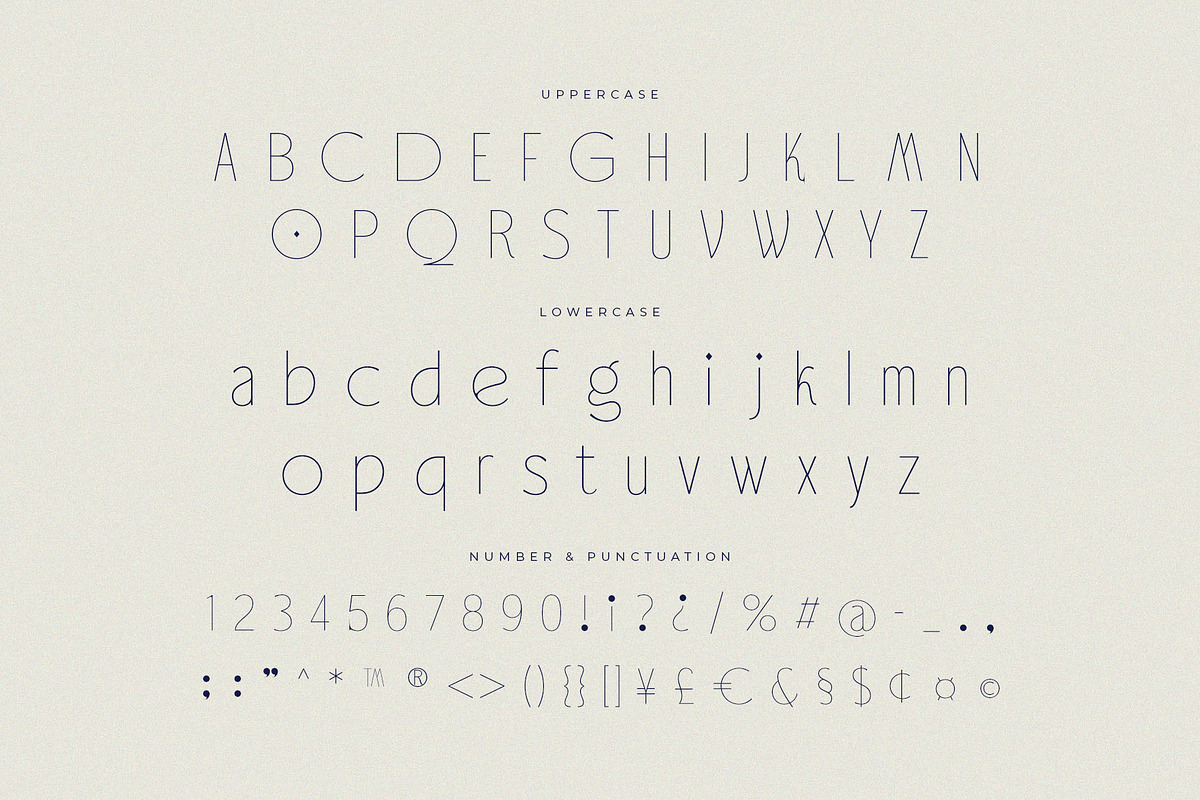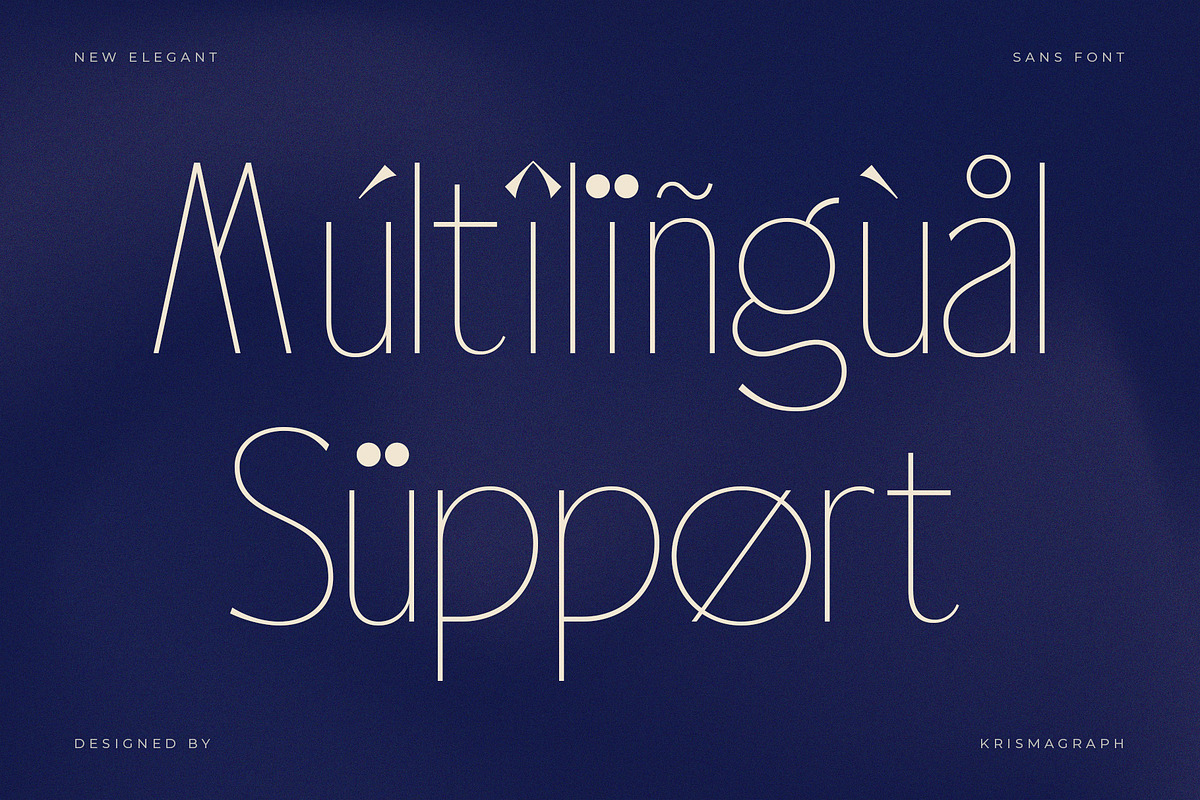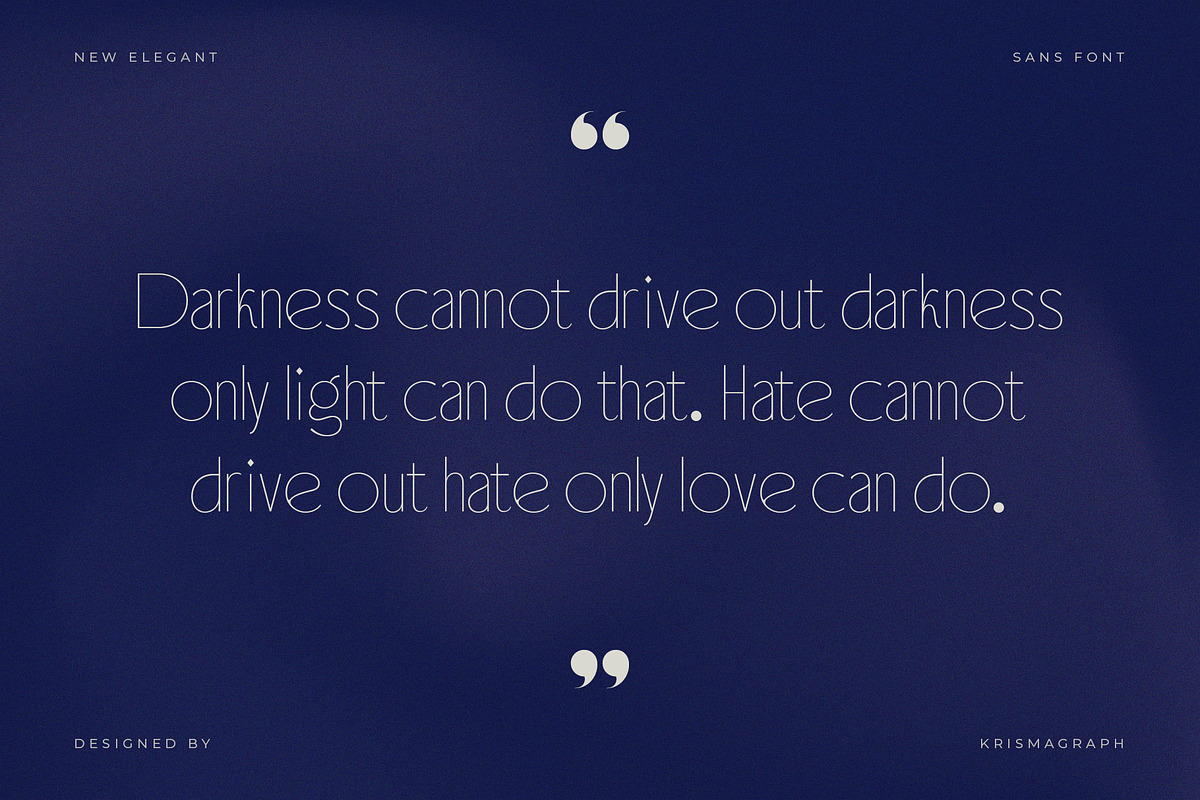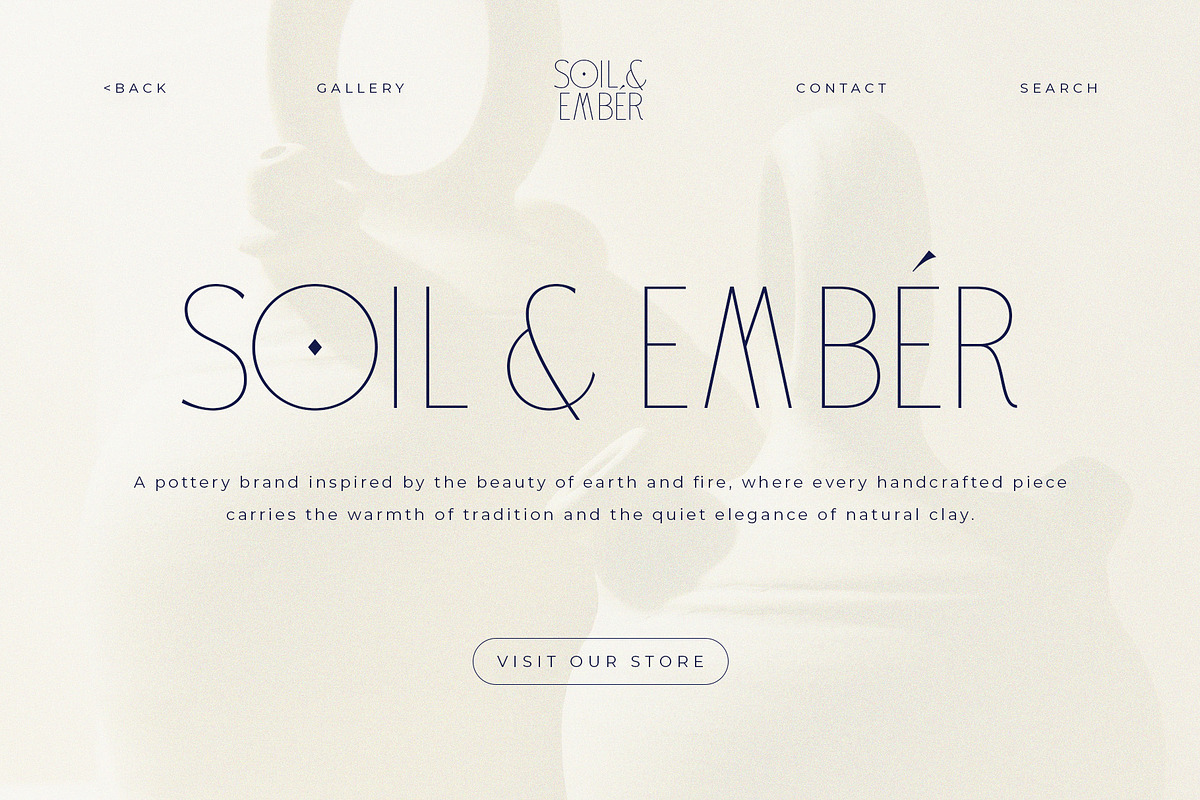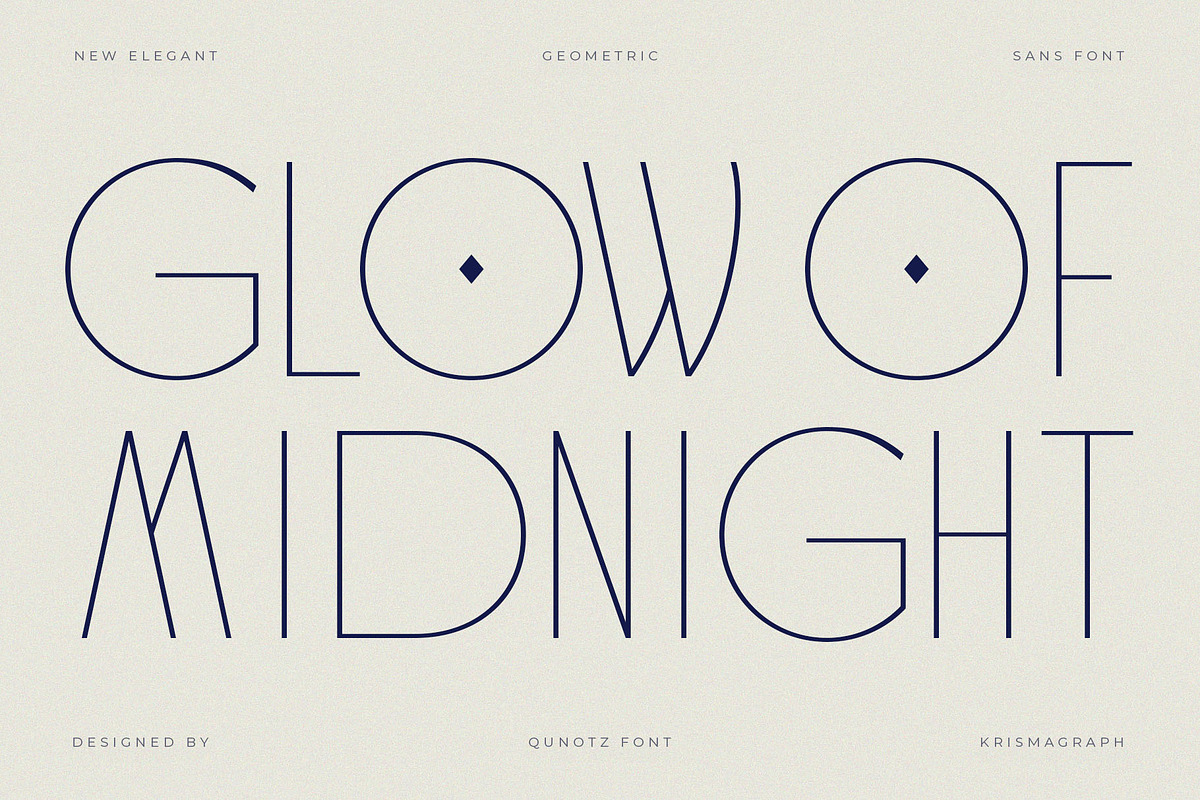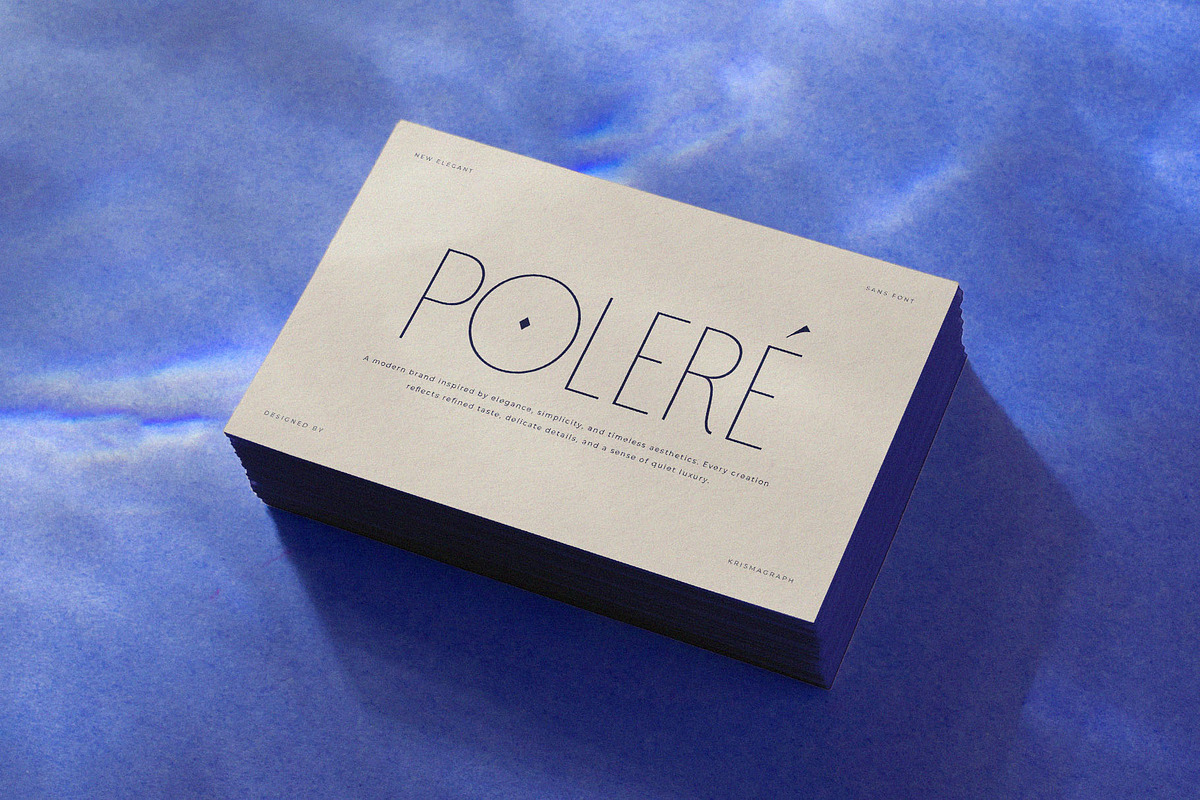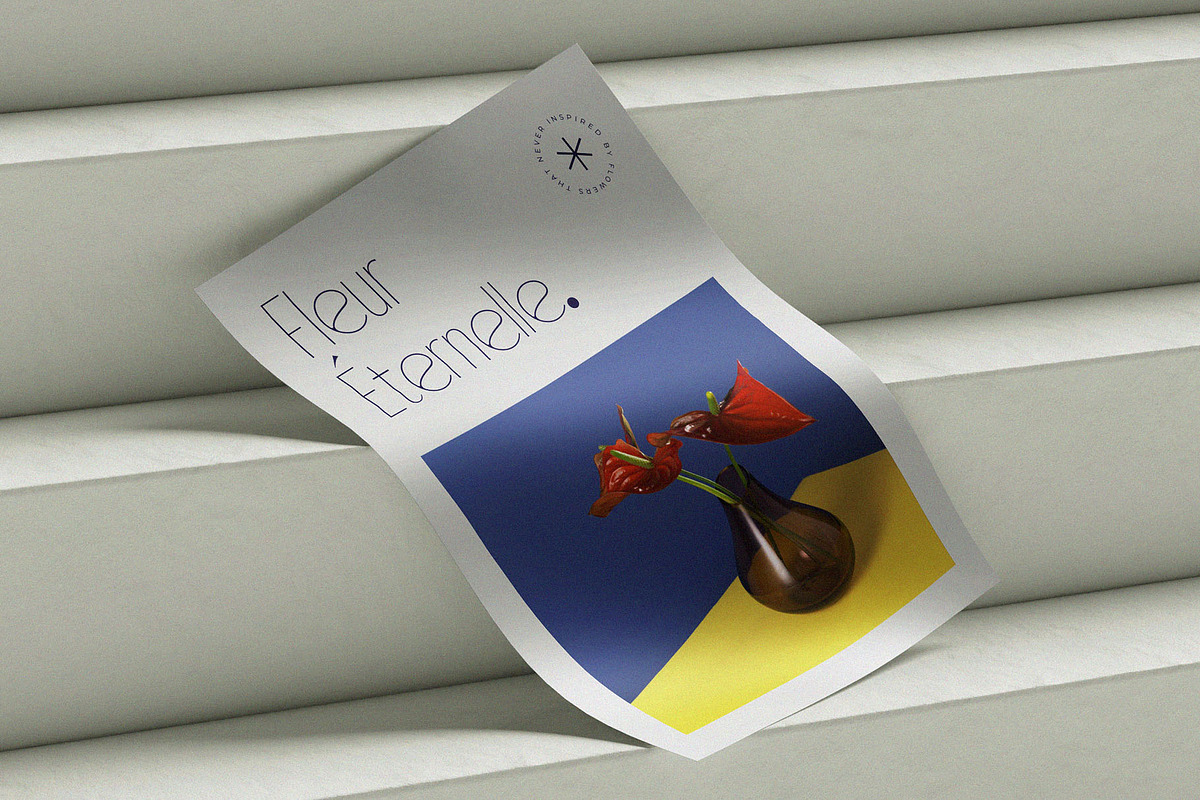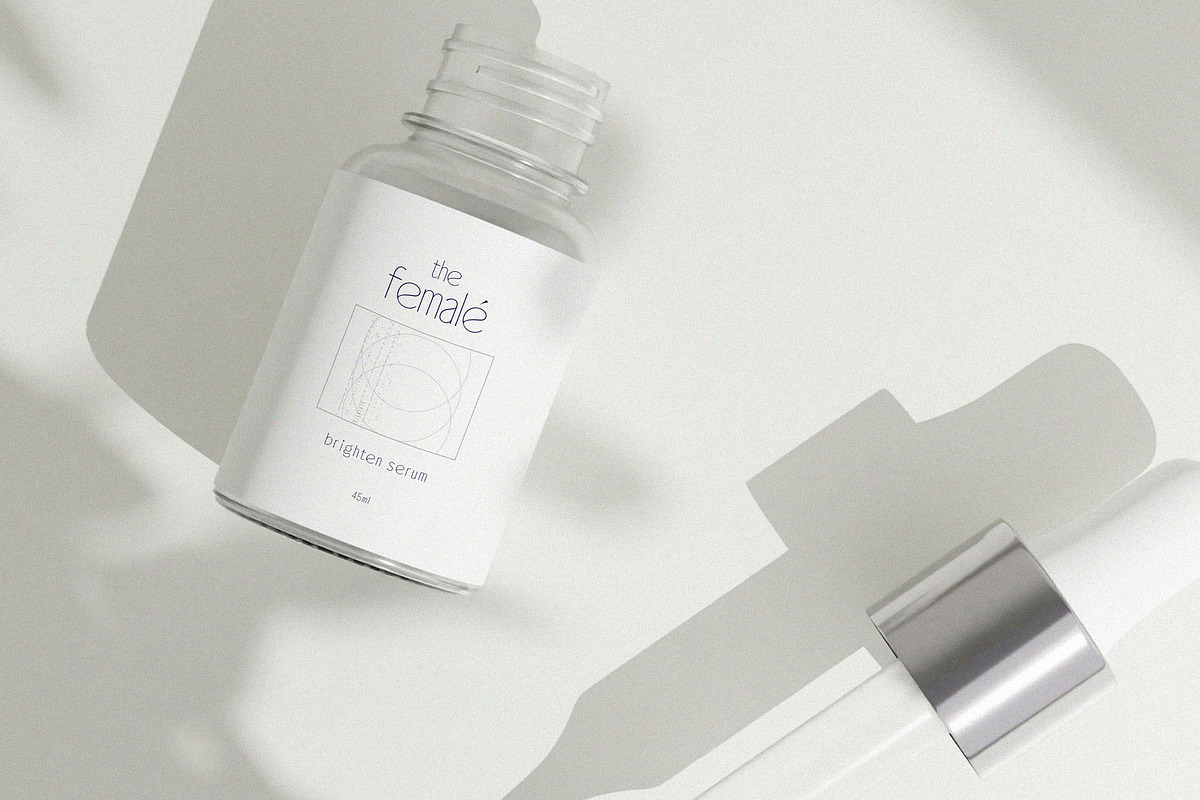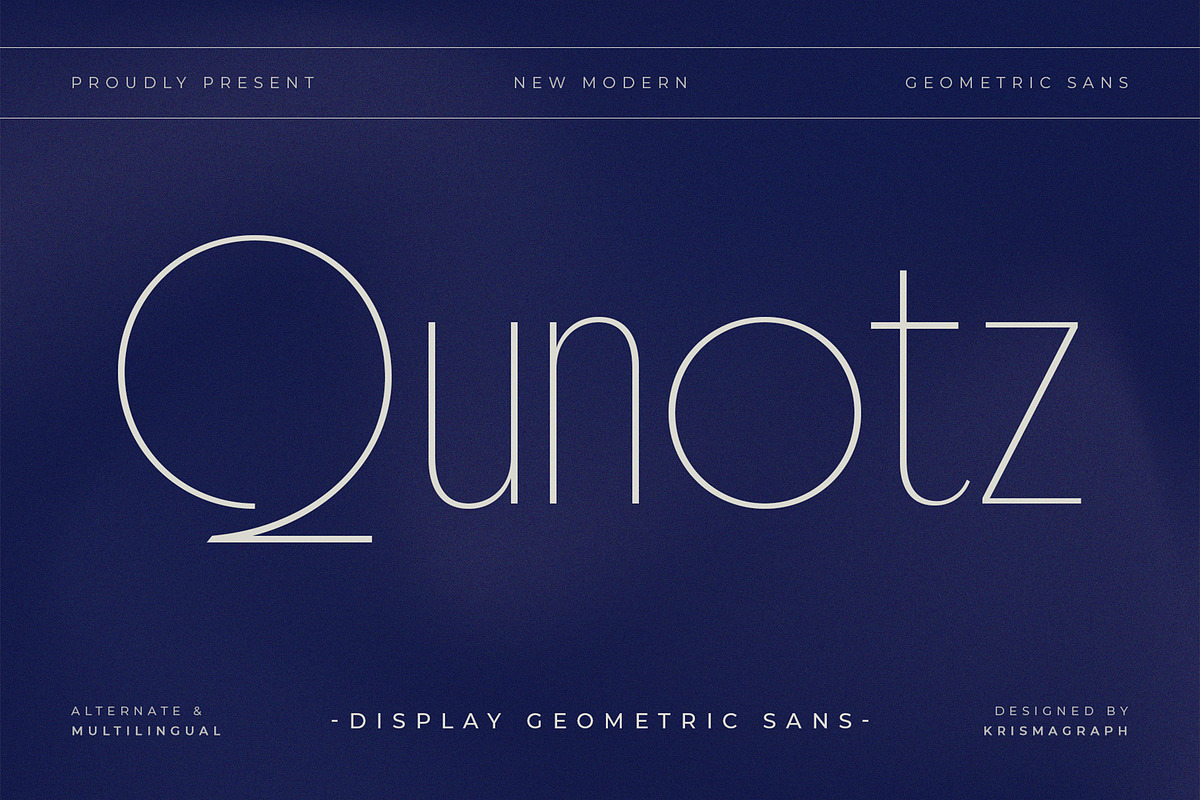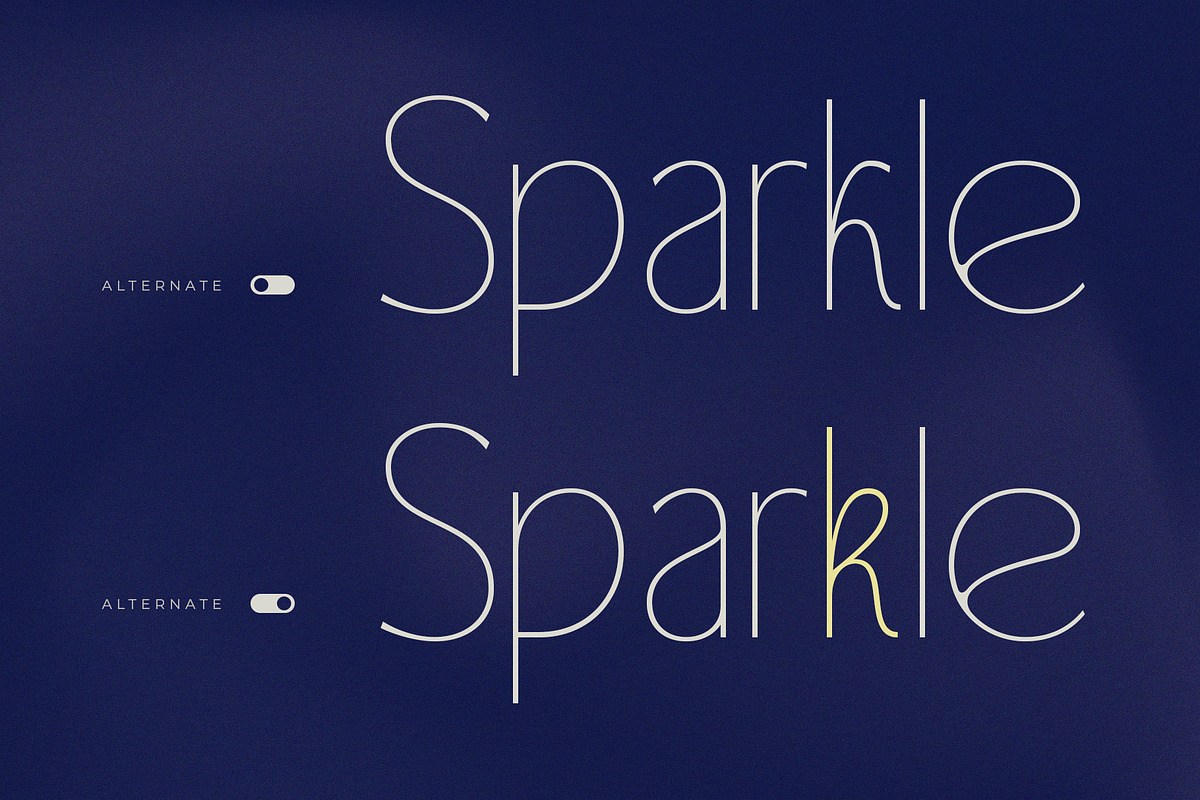
Qunotz | Display Sans
Qunotz is a precision-crafted ultra-thin geometric display sans that turns negative space into a design statement. Built on pure circular geometry, its hairline strokes and expansive open counters create an unmistakable visual signature — ethereal, architectural, and distinctly contemporary.
This is a typeface for brands that speak in whispers but still command a room. Qunotz is ideal for high-end fashion labels, luxury real estate, architectural studios, fine jewelry, cosmetic packaging, premium spa identities, and any creative project where restraint is the ultimate luxury.
At large display sizes, the font's geometric purity becomes meditative — each letterform a study in minimal construction. Alternate characters and multilingual support ensure this typeface works as hard internationally as it does aesthetically.
Display Geometric Sans — ultra-thin weight Alternate characters & multilingual support Ideal for: ✦ ✦ ✦ luxury fashion, real estate, architecture, cosmetics, fine jewelry, spa & beauty .
Numbers, fractions
Punctuation and symbols